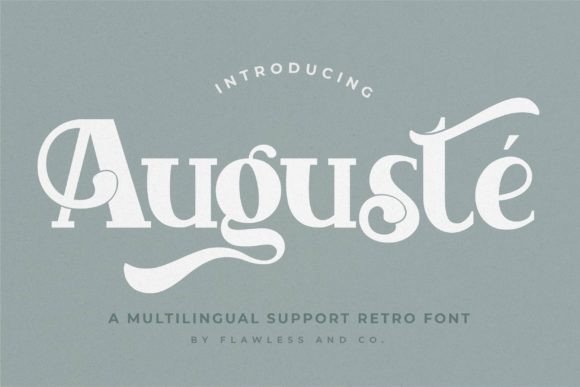
Dive into the realm of creativity and adorn your designs with the alluring charm of Auguste Font, a captivating display typeface crafted by the visionary minds at Flawless And Co. This font family is nothing short of a masterpiece, a veritable crown jewel that will elevate your designs to new heights of elegance and sophistication.
With its graceful curves and retro-inspired charm, Auguste Font exudes a timeless appeal that will effortlessly enhance any project you undertake. Its versatility knows no bounds, making it the perfect choice for creating captivating logos, eye-catching headlines, and stunning social media graphics. Unleash your imagination and let Auguste Font transform your creative endeavors into works of art that captivate and inspire.
Step into a world where fonts come to life, where every letter dances across the page with effortless grace and poise. Auguste Font is not just a collection of characters; it's a symphony of creativity, a masterpiece that will elevate your designs to new heights. Its intricate details and delicate flourishes will leave a lasting impression on your audience, leaving them captivated and craving more.
Whether you're a seasoned designer or just starting to explore the world of typography, Auguste Font is the perfect choice for you. Its user-friendly nature makes it easy to incorporate into your designs, while its stunning aesthetics will leave you breathless. Experience the beauty and elegance of Auguste Font today and see how it transforms your creative projects into masterpieces.
Don't settle for ordinary fonts that blend into the background. Embrace the extraordinary with Auguste Font and let your designs shine brighter than ever before. Its timeless appeal and captivating charm will make your work stand out from the crowd, leaving a lasting impression that will keep your audience coming back for more.